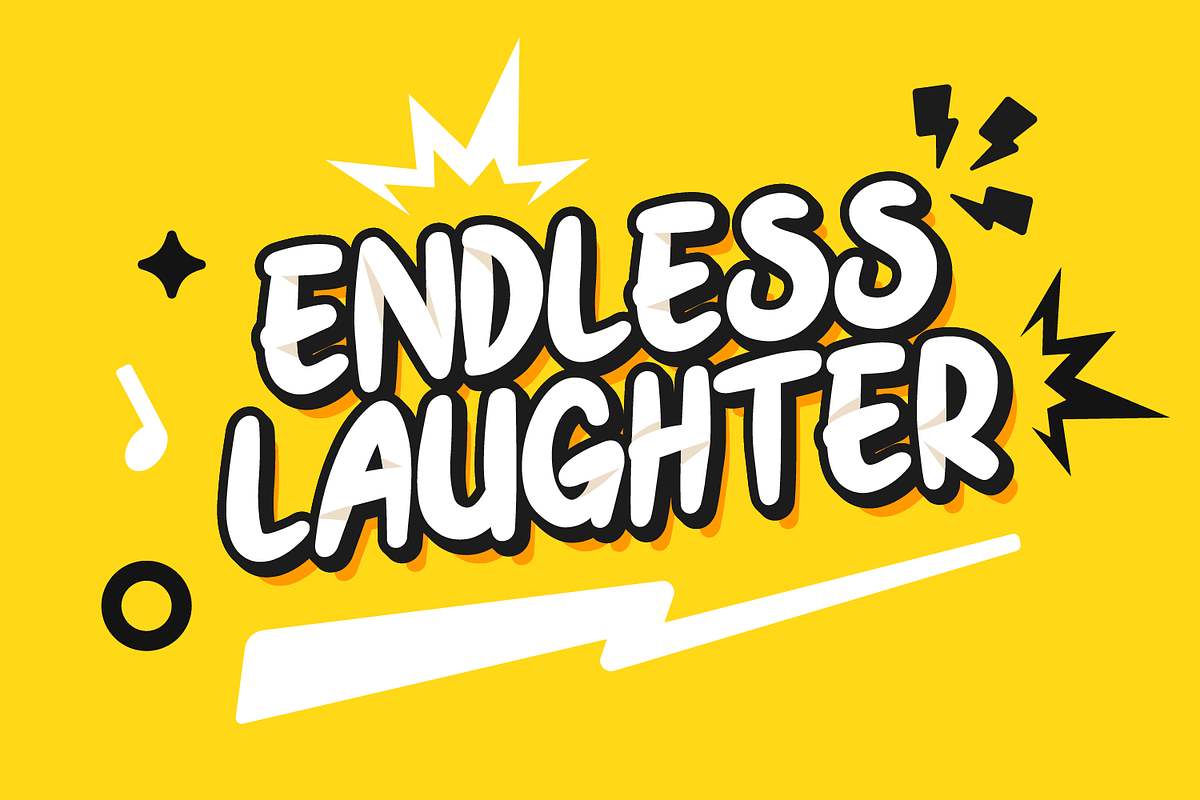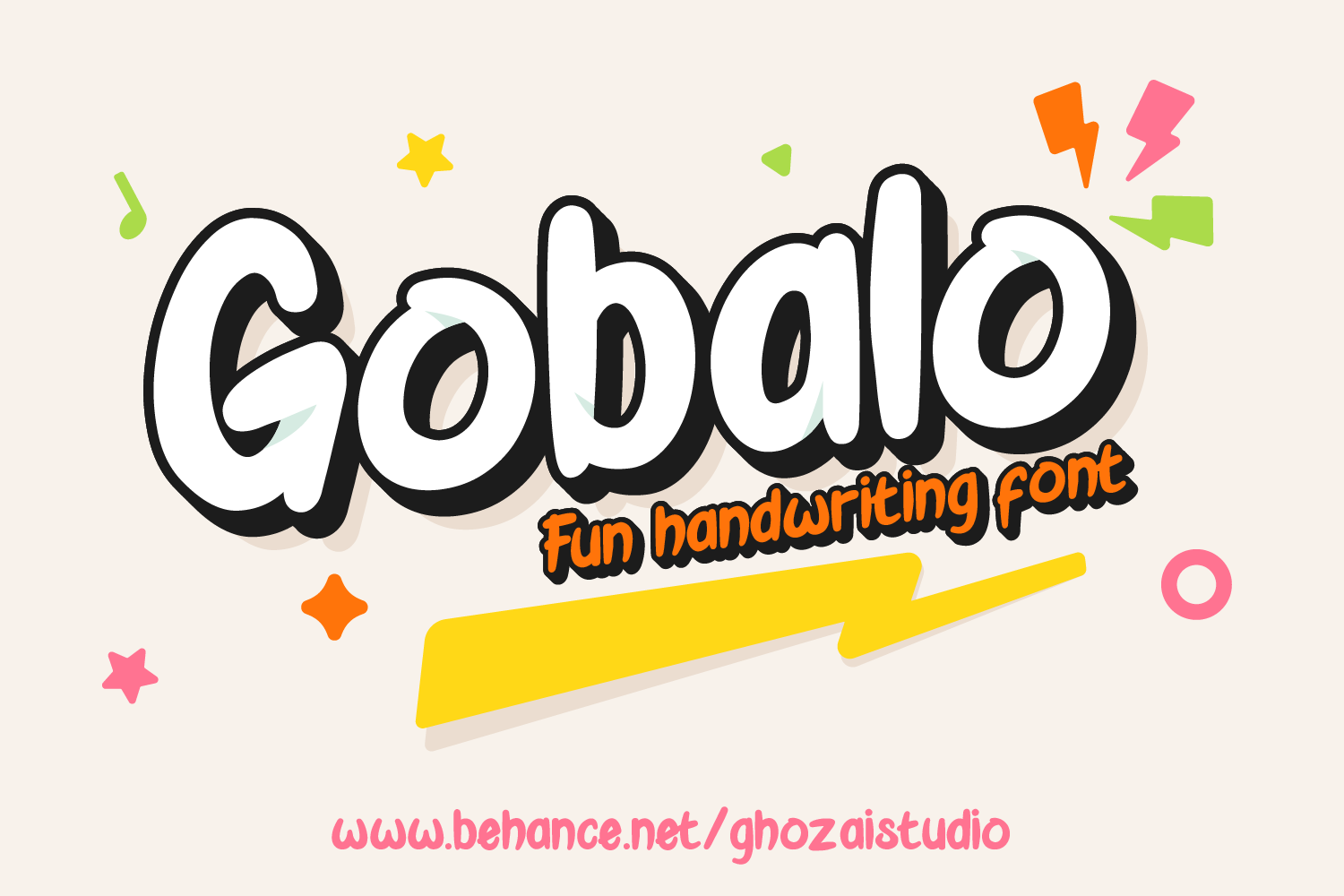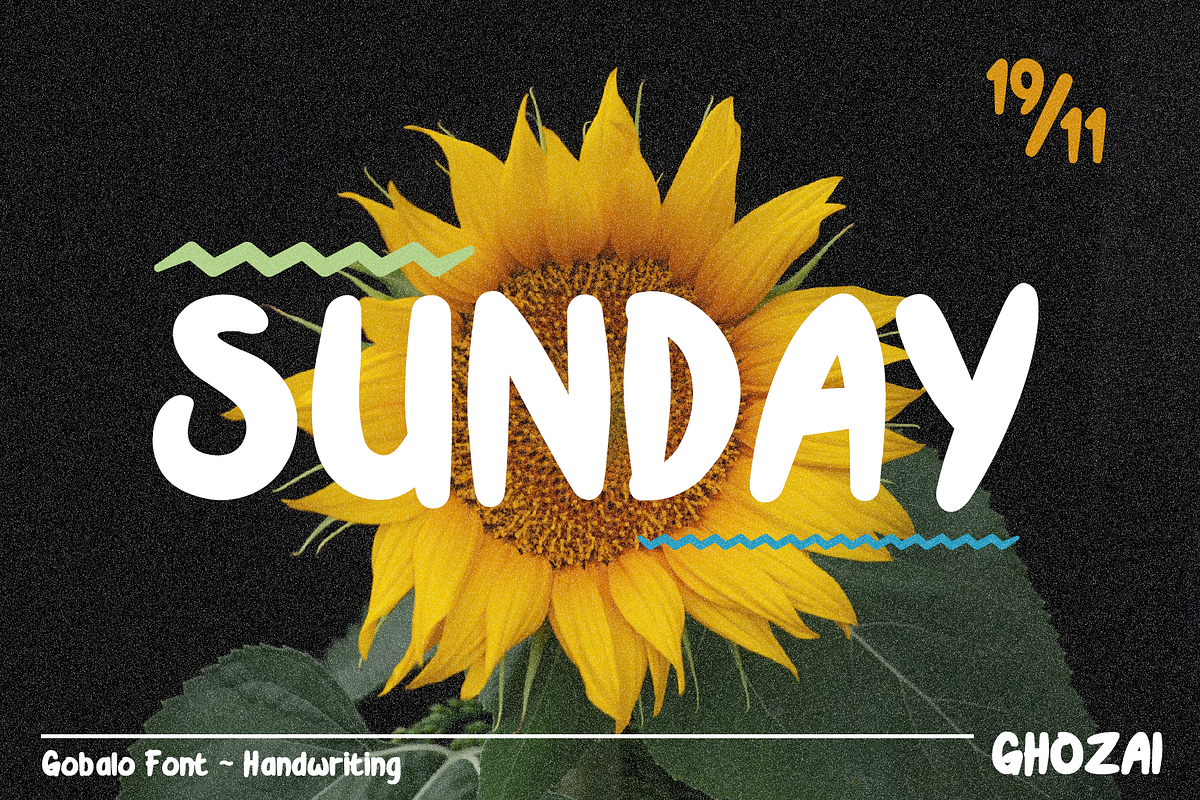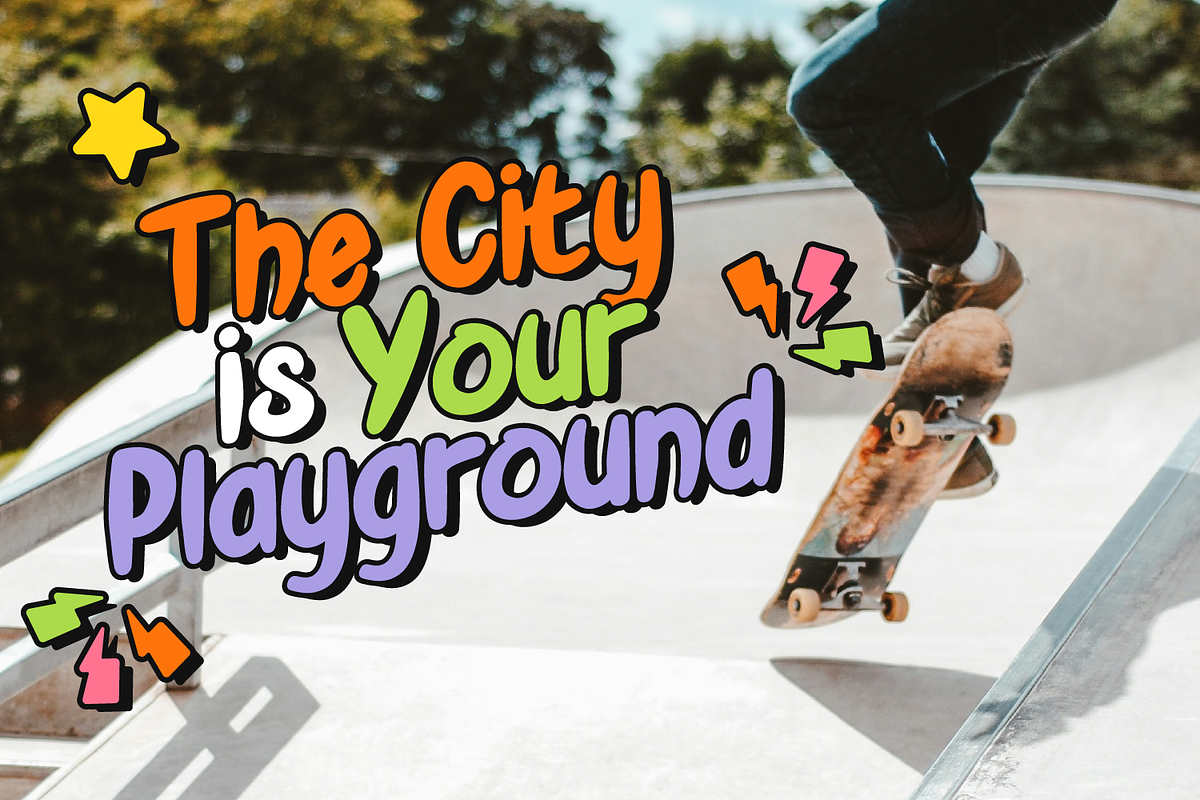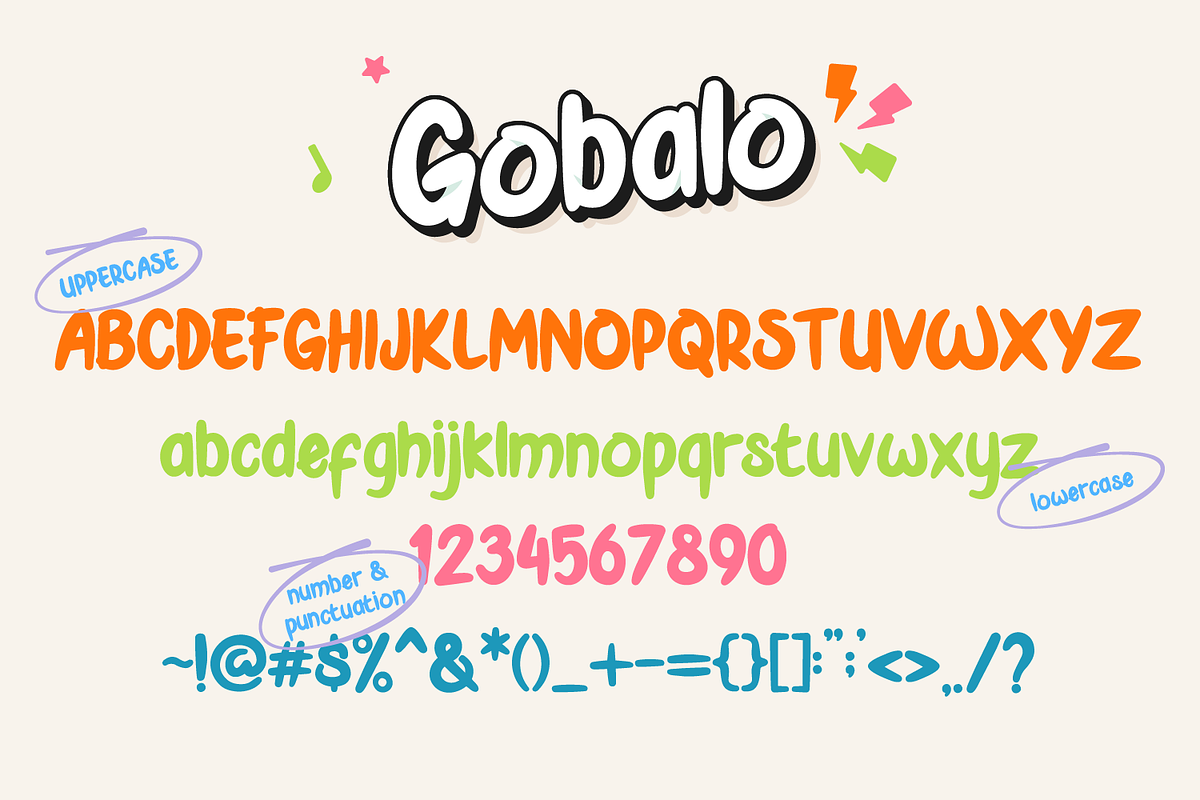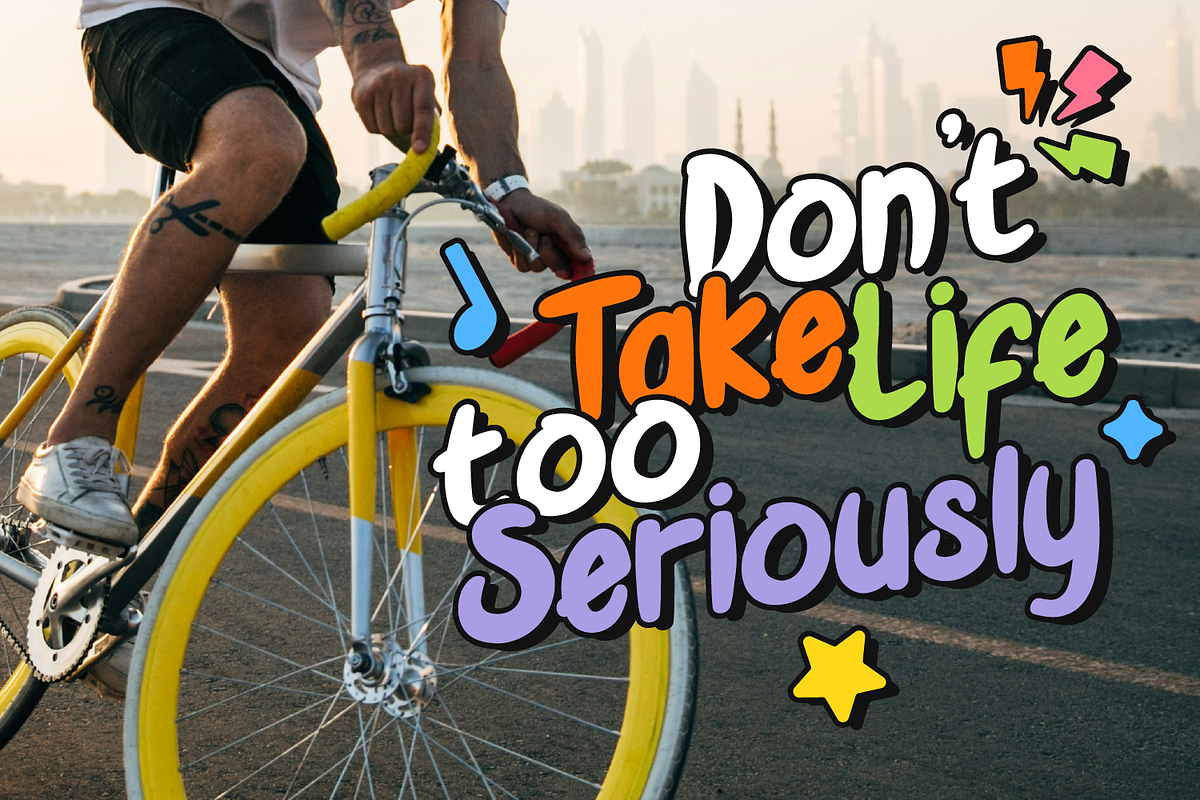
Gobalo - handwriting font
Introducing our latest font creation: Gobalo - handwriting font
Channel your inner cartoonist with our vibrant cartoon / handwriting inspired font! Perfect for adding a playful touch to your designs, captures the essence of fun and creativity. From comic books to children's books, social media posts to branding, this font is versatile and sure to bring your projects to life. Get ready to make a statement with every stroke!"